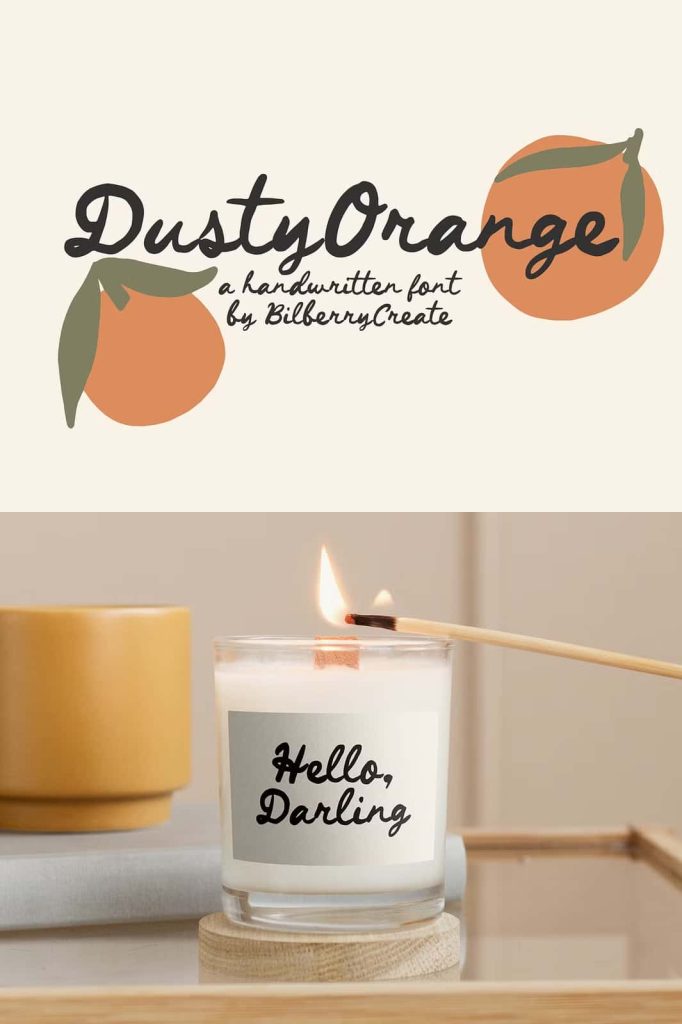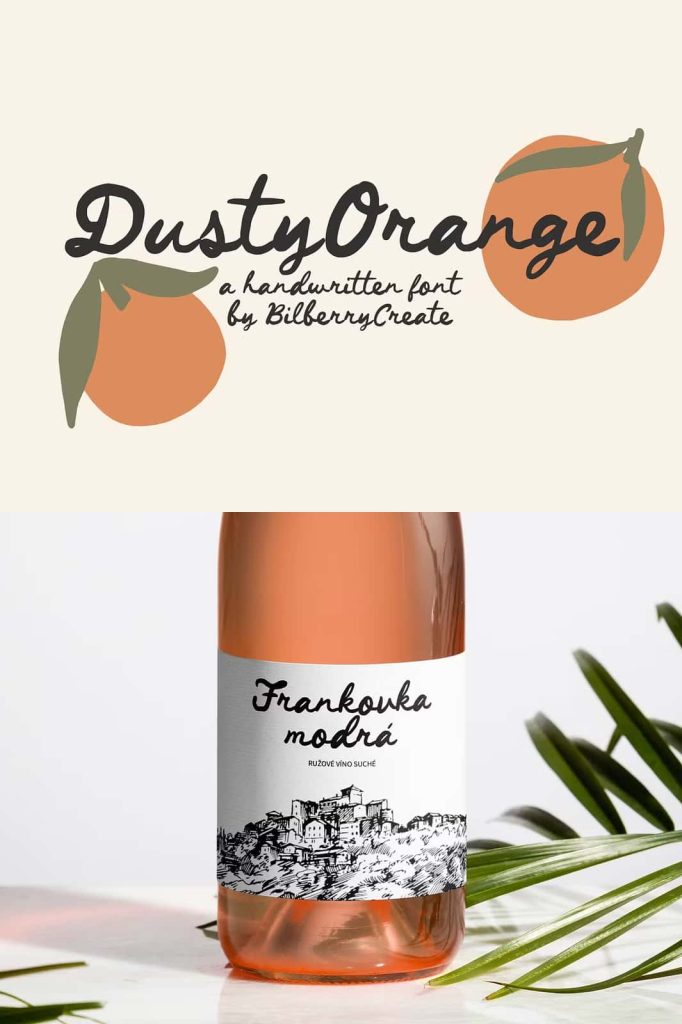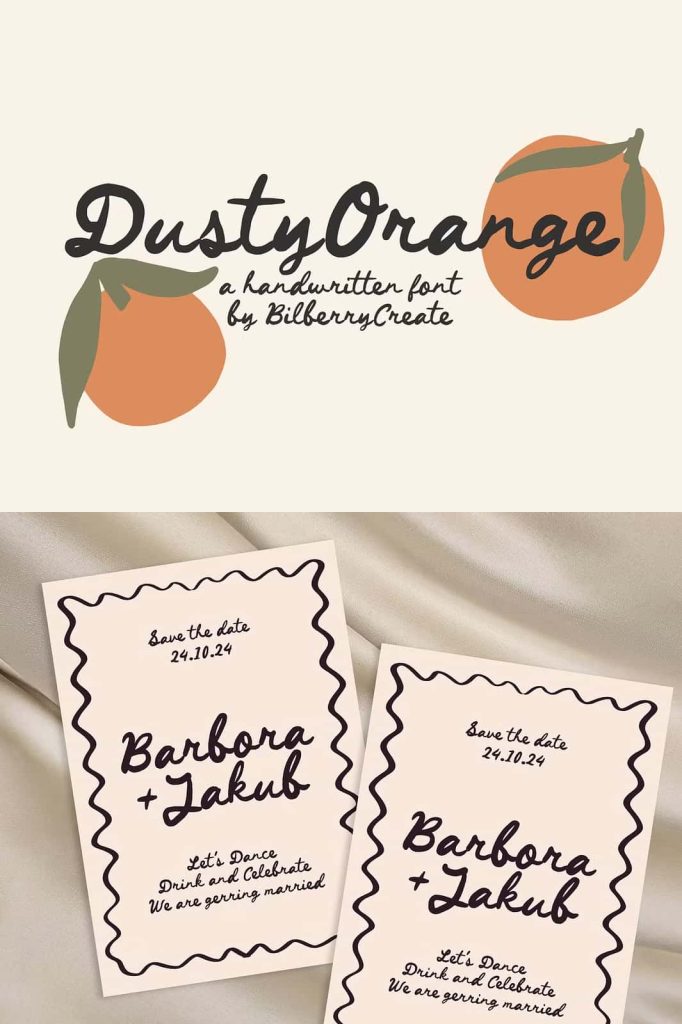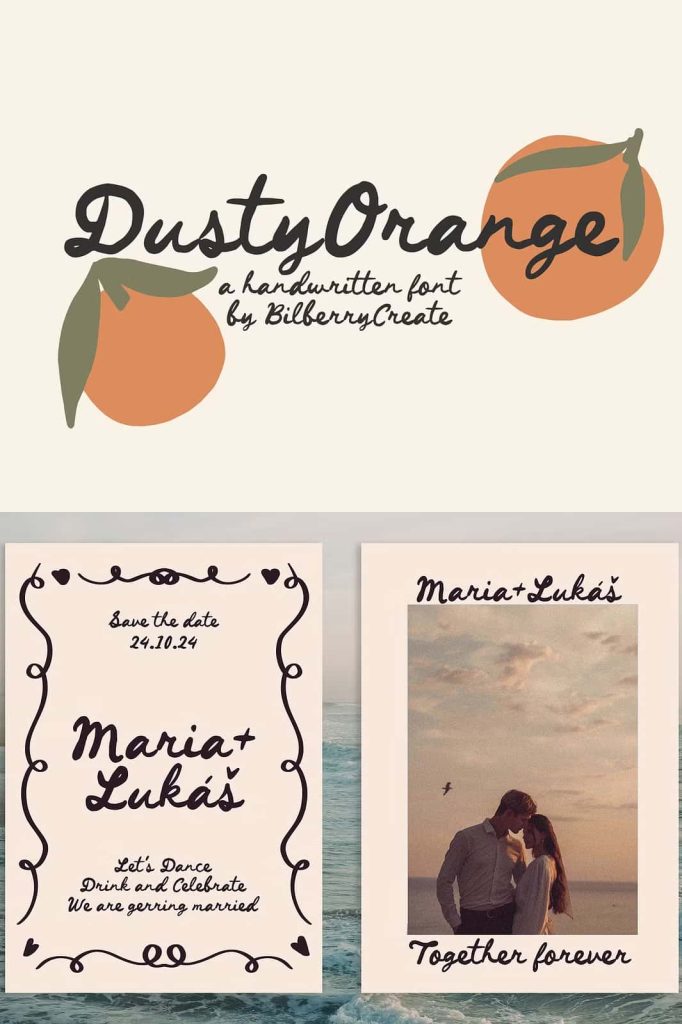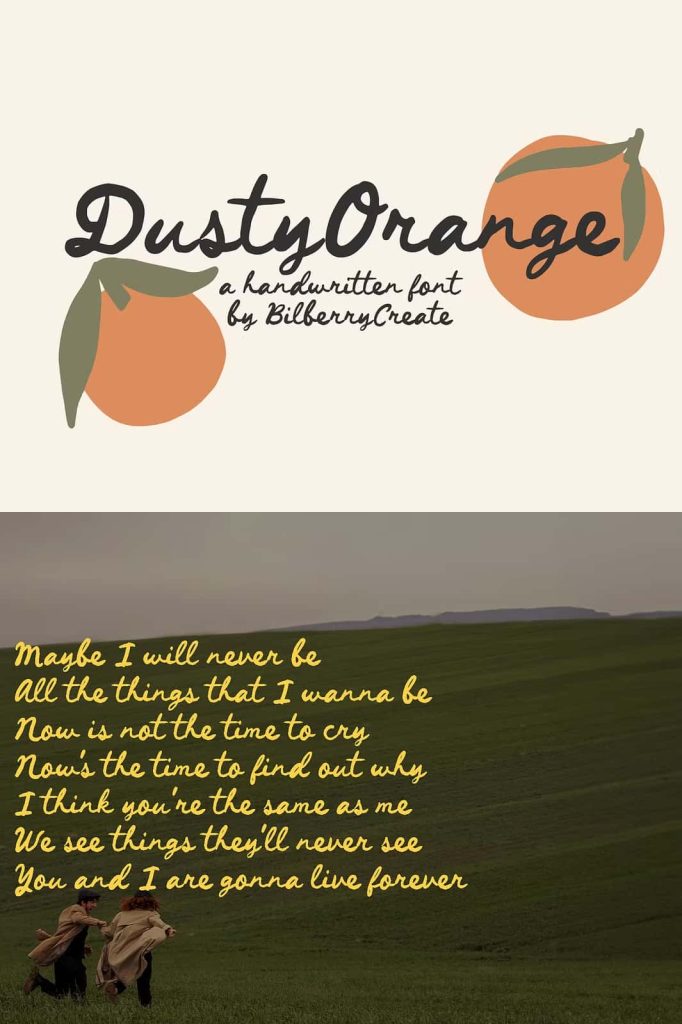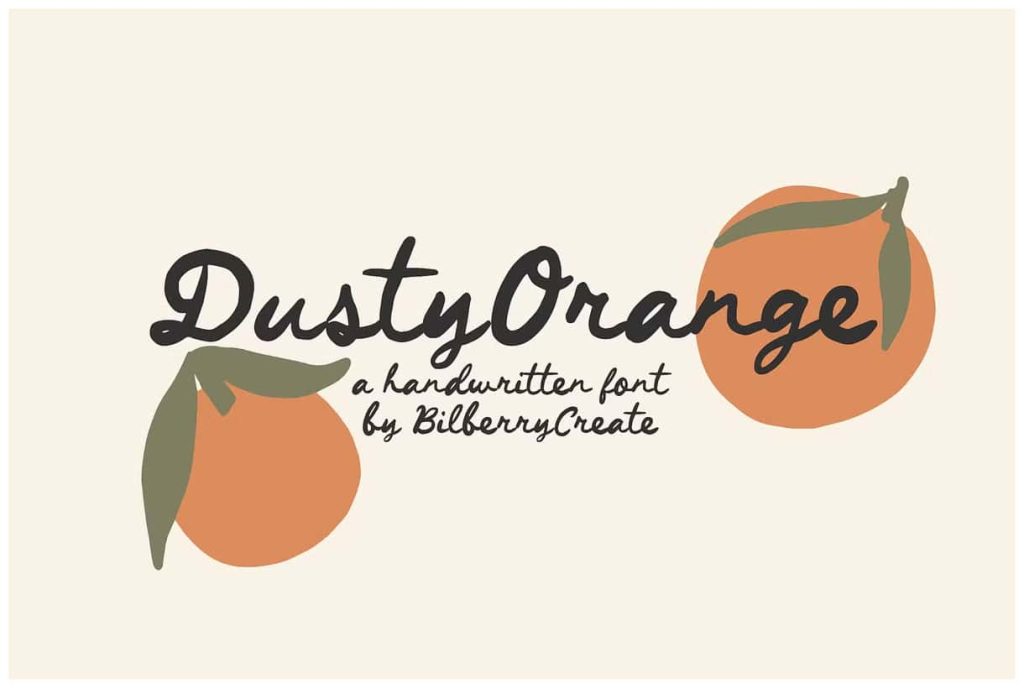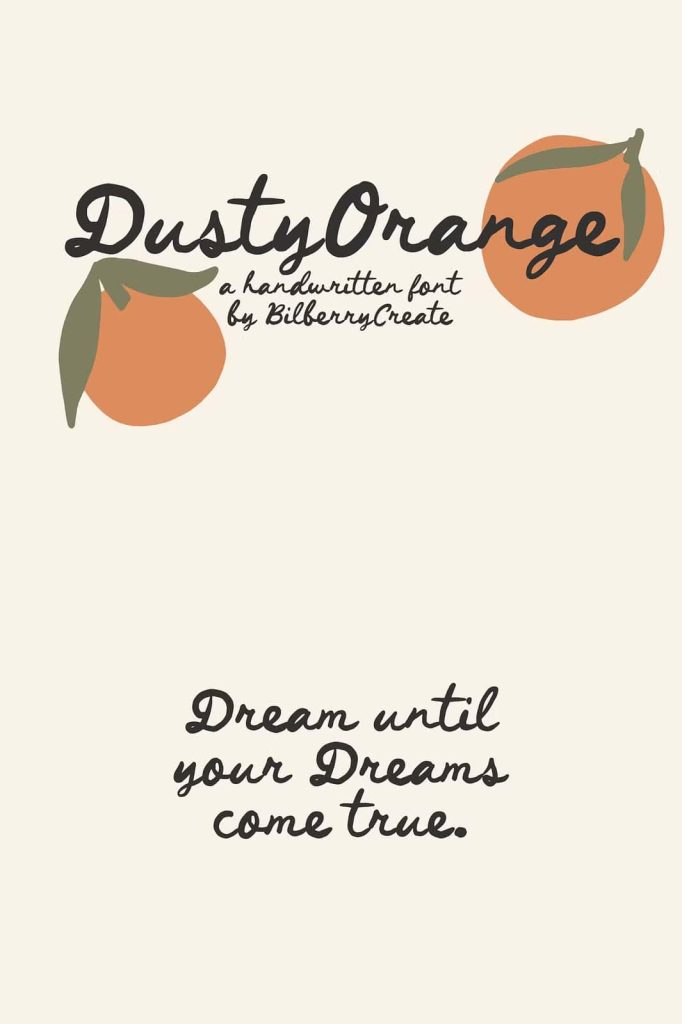
This is a perfect handwritten font for any project. Be sure to click on the image to see all elements. This product was created to help you make your digital images even more beautiful and unique.